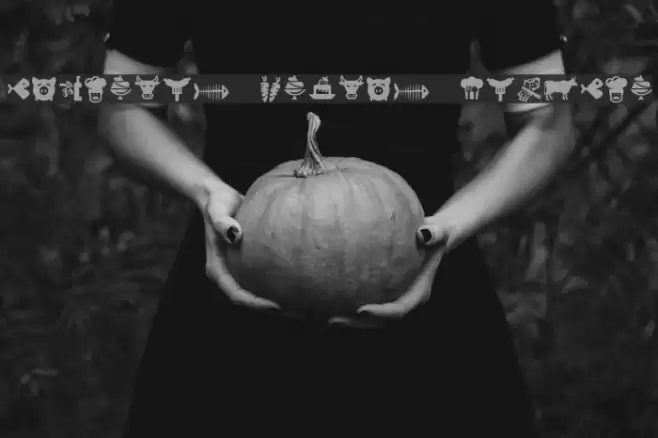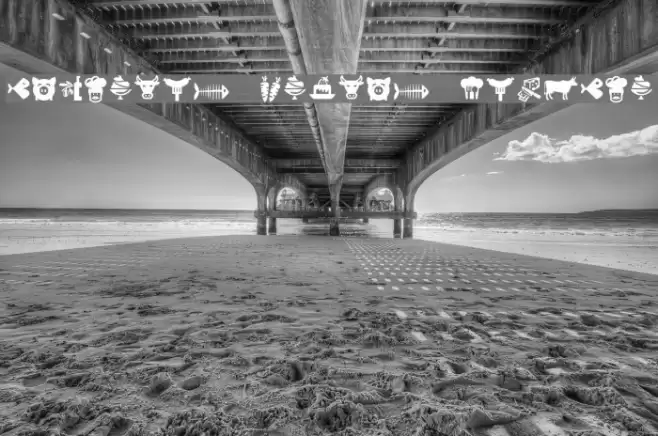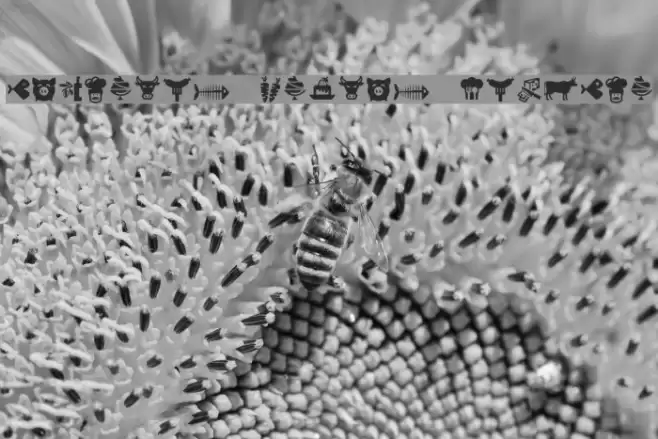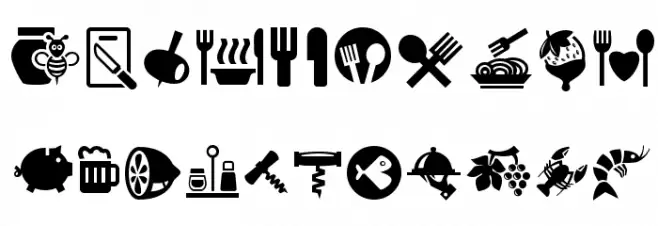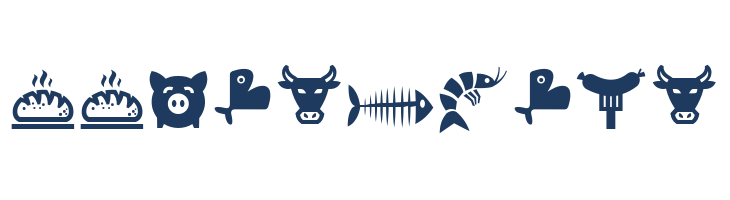
A playful and bold dingbat font featuring a variety of food, drink, and kitchen-themed icons, rendered in solid black silhouettes with clear, easily recognizable shapes and minimal detail.
- Proposed Projects: Menus, restaurant branding, food blogs, culinary infographics, packaging, event invitations.
- Overall Style: Playful, Modern, Decorative
- Use Case: Icons, Logos, Decorative elements, Thematic dividers